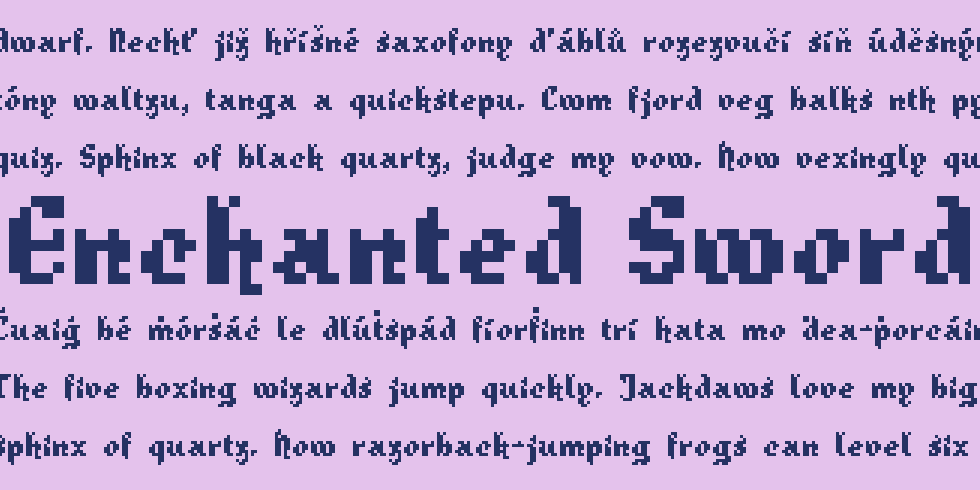
It’s summer, days are hot, and I’m still here pushing pixels around! This is a theme I’ve worked with a few tines before, each time tackling a slightly different style of script and different character styles (Alkhemikal – modern interpretation, Owre Kynge – Old English style, Scriptorium – insular script). I’ll also probably revisit the theme again; there are many more styles out there and they’re all interesting to approach in pixelated form.
Enchanted Sword is the smallest (in terms of character size) blackletter design I’ve done yet, and I’m quite pleased with how legible it remains. The uppercase is slim and compact, with very little in terms of ornamentation. Overall this is somewhat of a modern interpretation of various medieval scripts, along the lines of Alkhemikal, but with a different set of internal rules.
Fun fact: About 80% of the way through this design I learned that it’s actually very similar to the font used on the original posters for The Last Unicorn. I did not reference this logo or any other contemporary blackletter-inspired scripts, but somehow still ended up with something along the same lines.